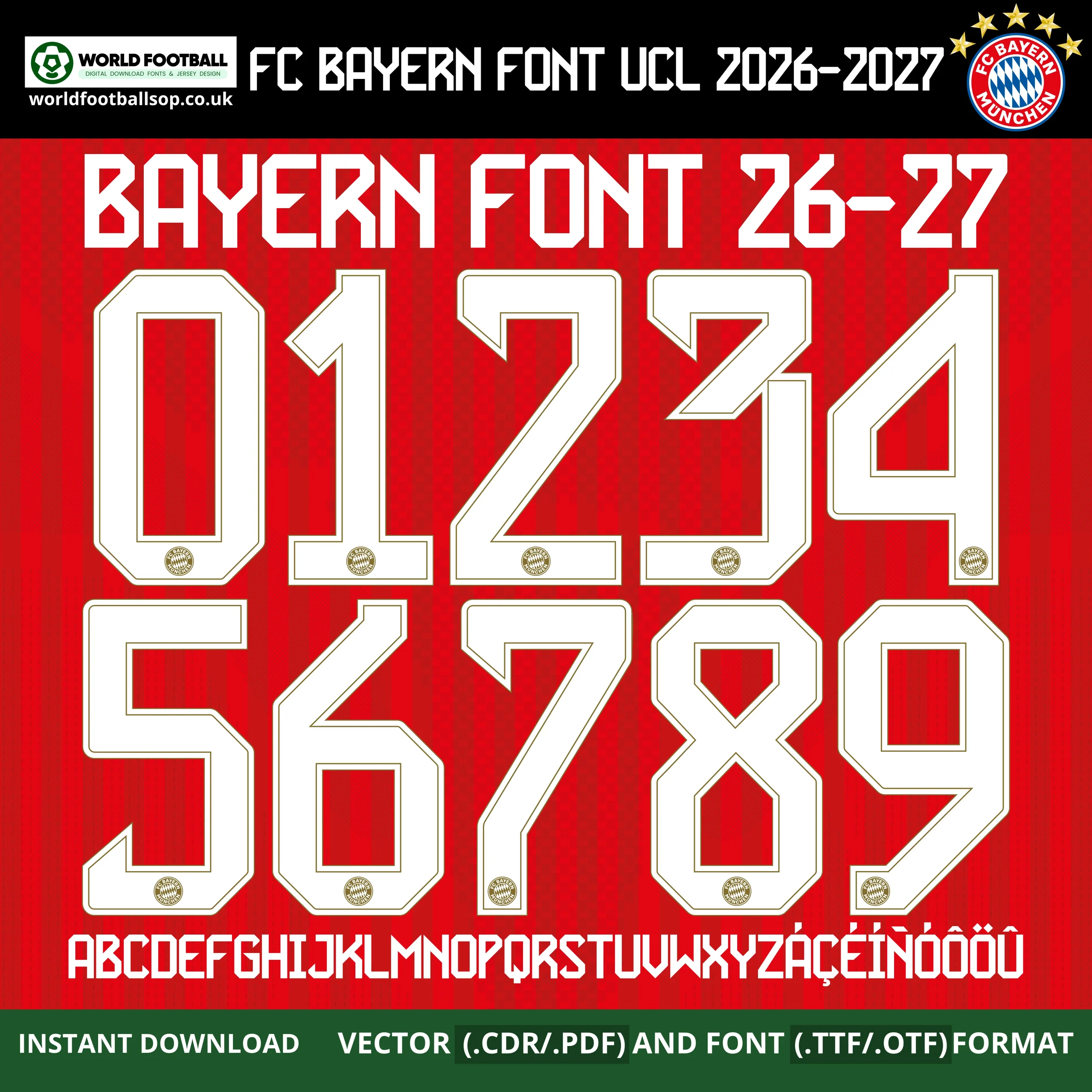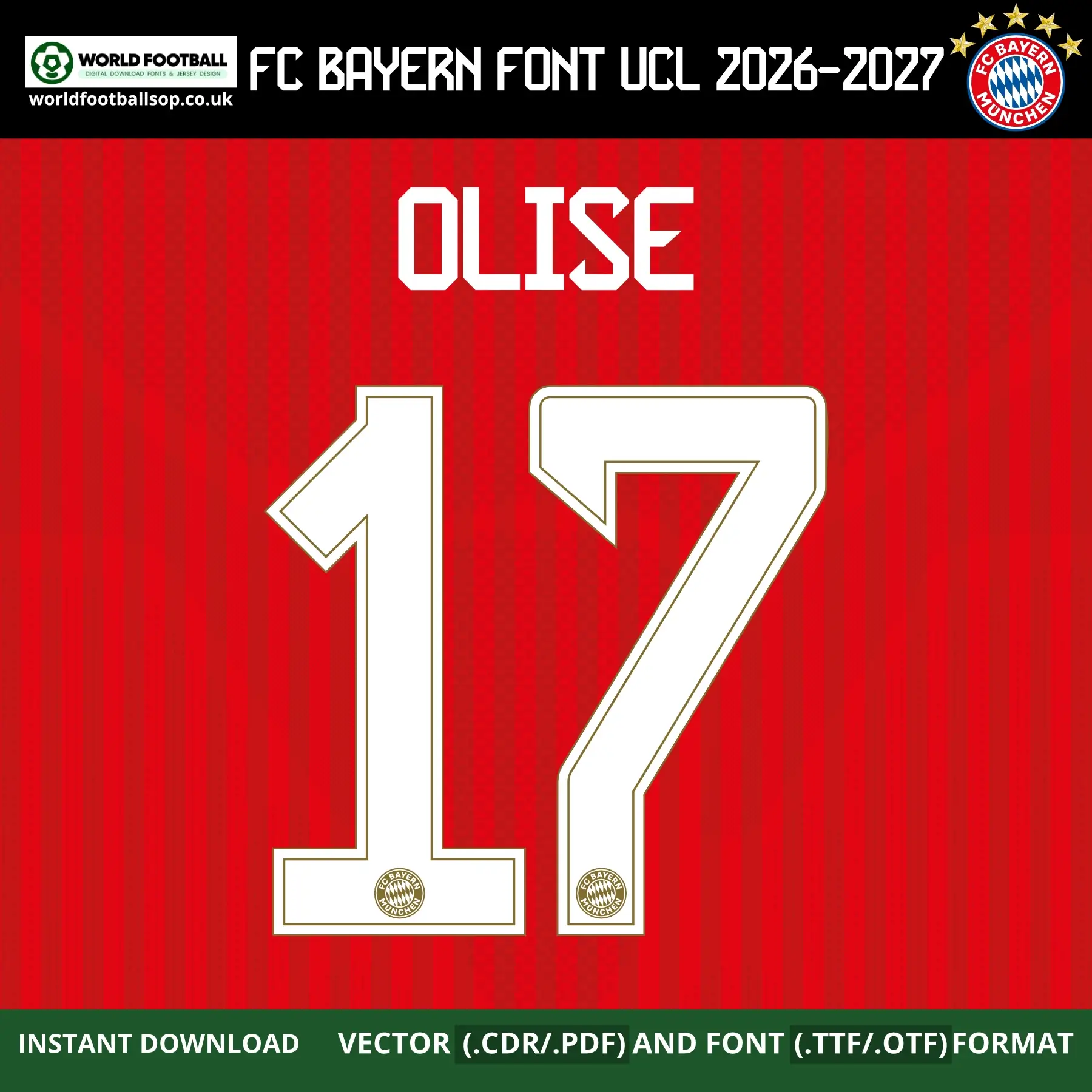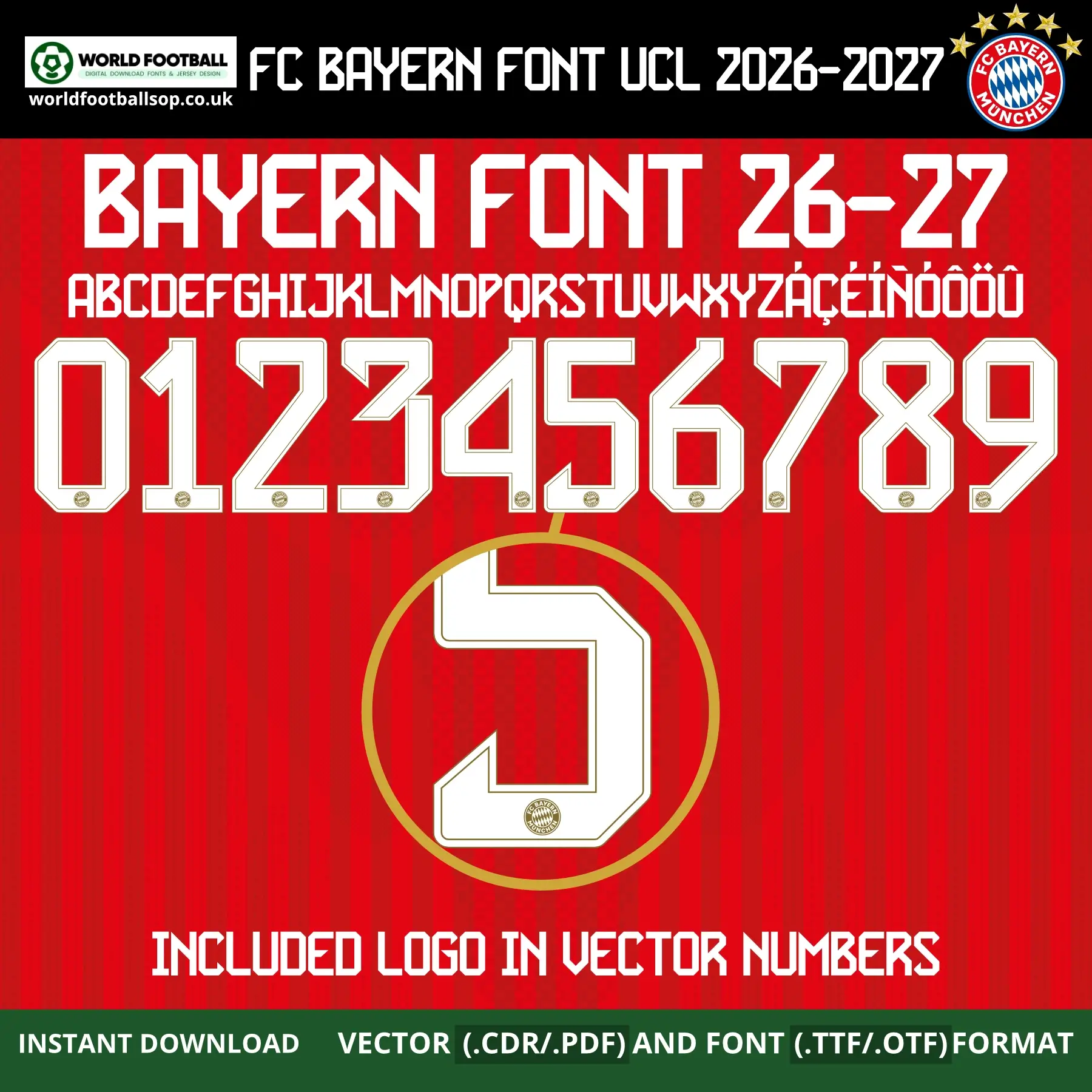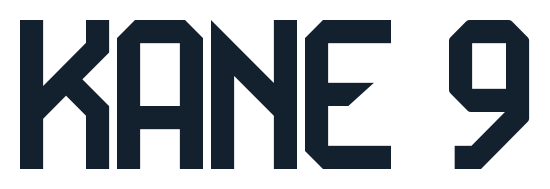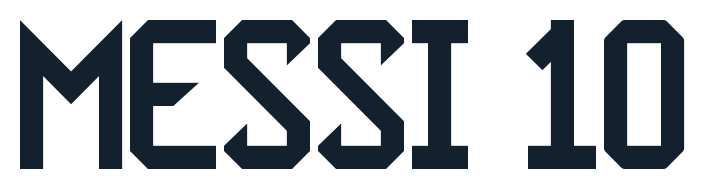
FC Bayern München Font UCL 2026-27 – Official‑style Jersey Typography
This FC Bayern München Font Football UCL 2026-27 kit recreates the bold, clean lettering used on Bayern’s iconic red home shirts for the 2026-27 UEFA Champions League season. The tall, wide numbers and letters feature a crisp white fill with a sharp gold inner-outline detail running through each character – perfectly capturing the premium UCL matchday look of the Rekordmeister’s official kit typography against the classic red vertical stripe home kit background. It is perfect for fans, designers and print shops who want authentic‑looking names and numbers on custom Bayern München jerseys and football graphics.
Full uppercase alphabet A-Z and numbers 0-9 with extended accents (Á, Ç, É, Í, Ñ, Ó, Ô, Ö, Ü)
Preview layouts showing complete number set and example name/number combo – OLISE 17
UCL accuracy: Inspired by the exclusive FC Bayern München Font UCL 2026-27, not a generic typeface
High legibility: Bold, wide forms with gold inner-outline detail keep numbers clear on both TV and print designs while maintaining Bayern’s iconic red and white identity
Whether you are designing a full squad of custom Bayern München shirts or a single fan jersey with your own name and number, this FC Bayern München Font UCL 2026-27 gives your project a professional, on‑pitch look.